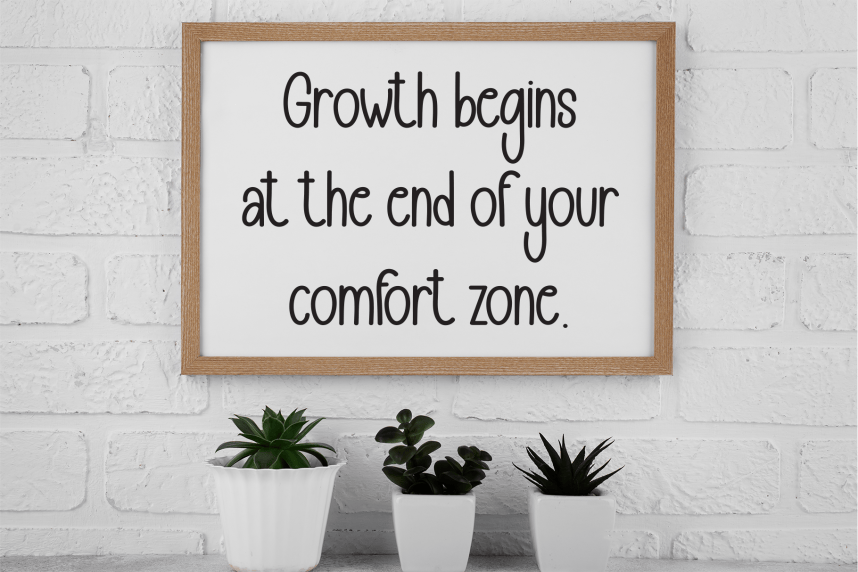
Watercolor – Simple Handmade Font
Watercolor – Simple Handmade Font is a sweet and friendly handwritten display font. Cute and fun, this font is ideal for writing wedding invitations, cards, or any other design that might need a playful touch!